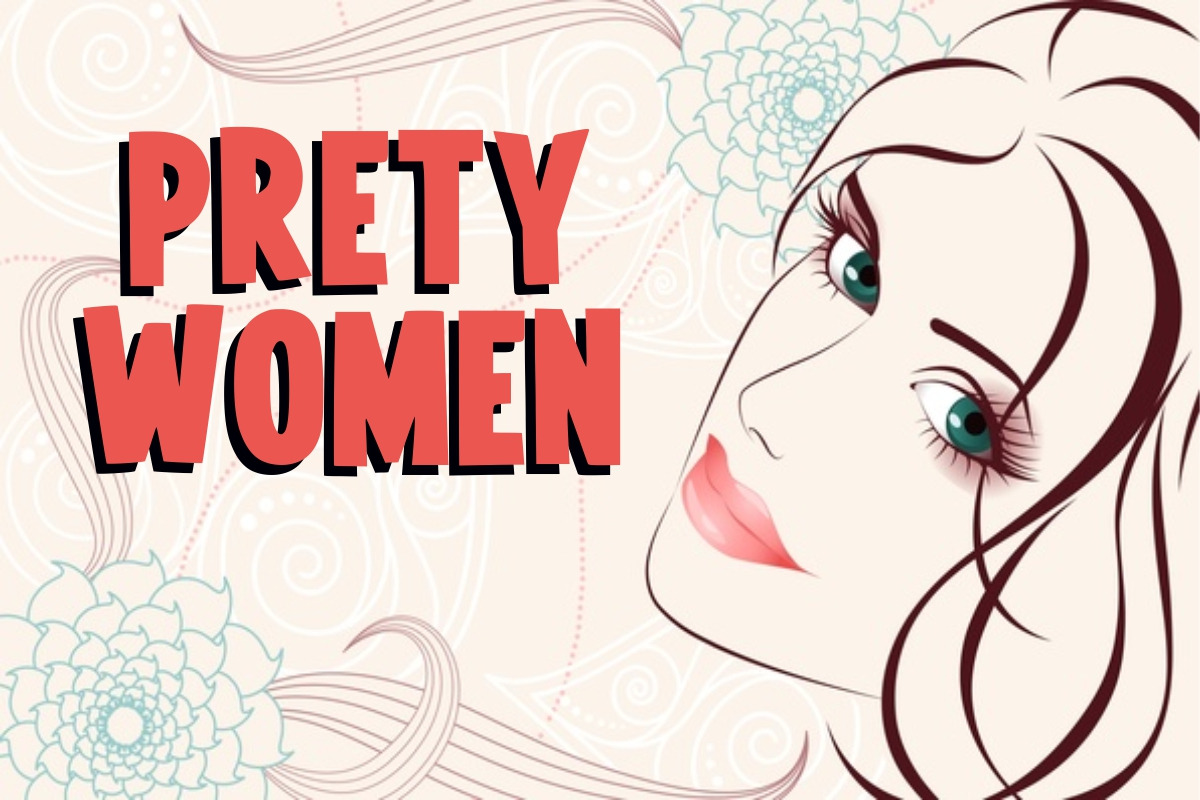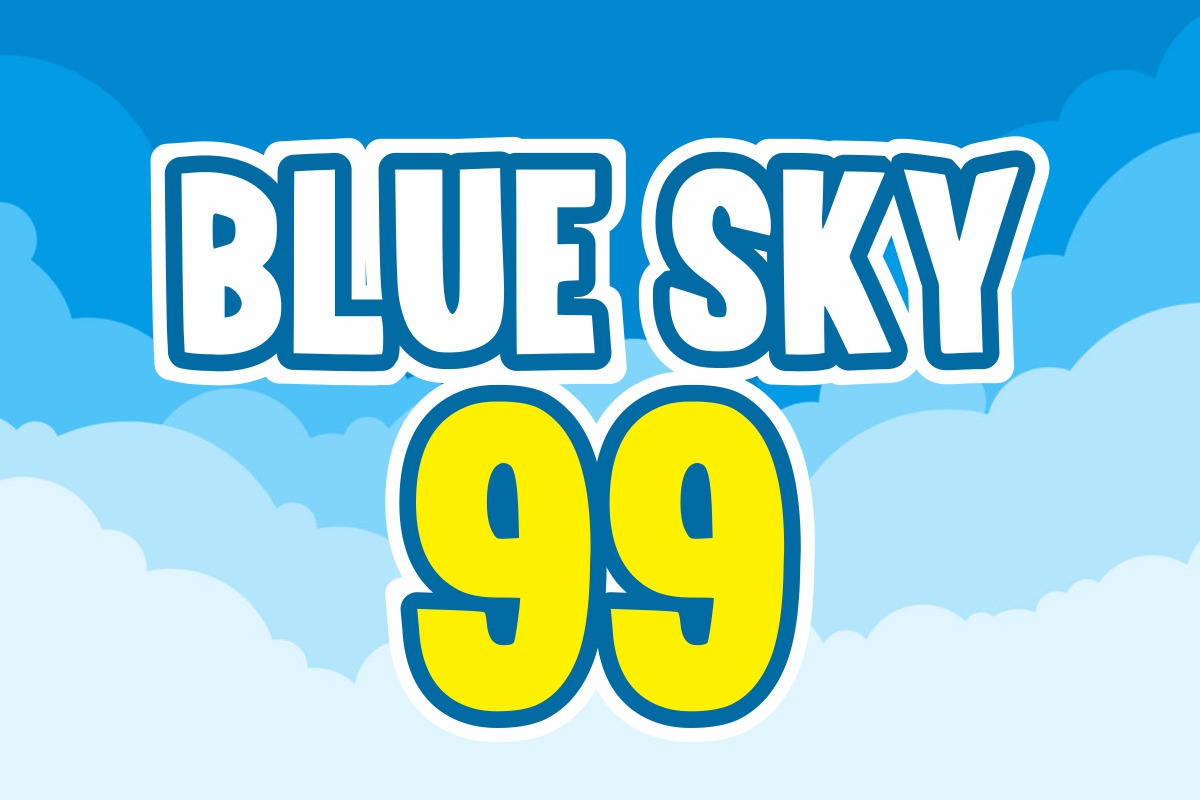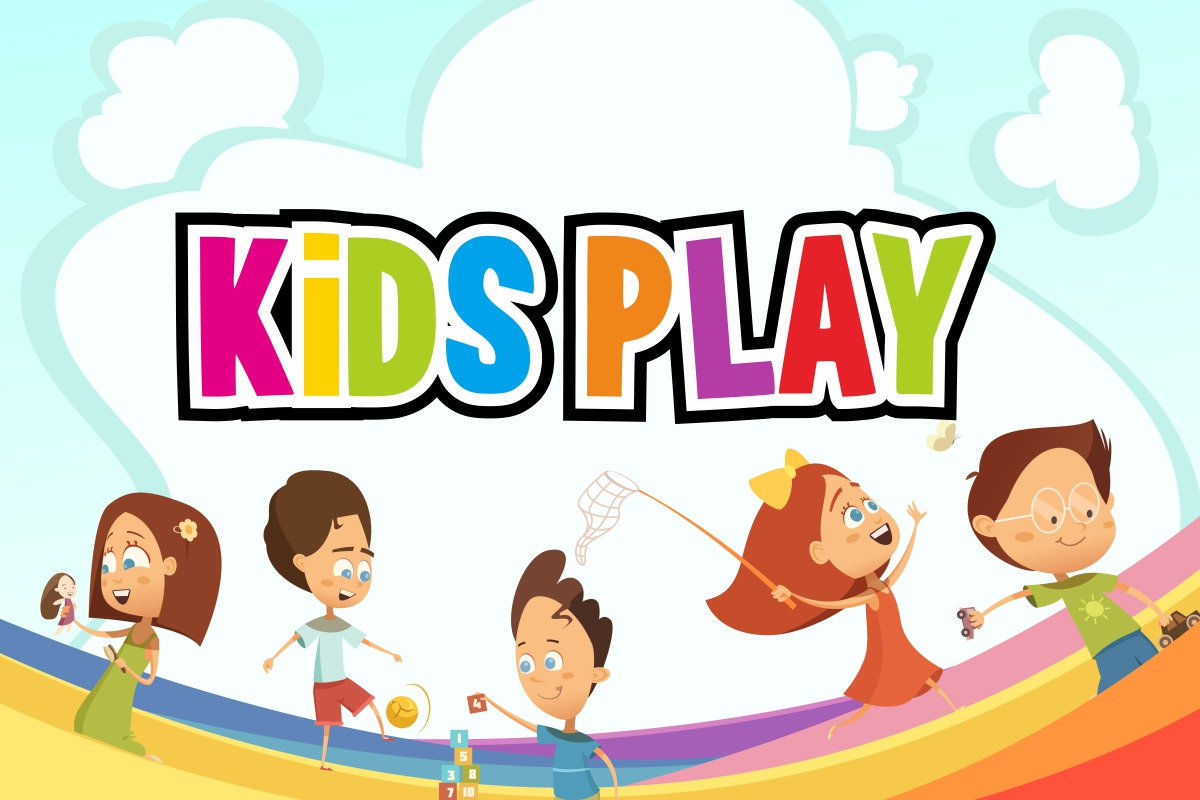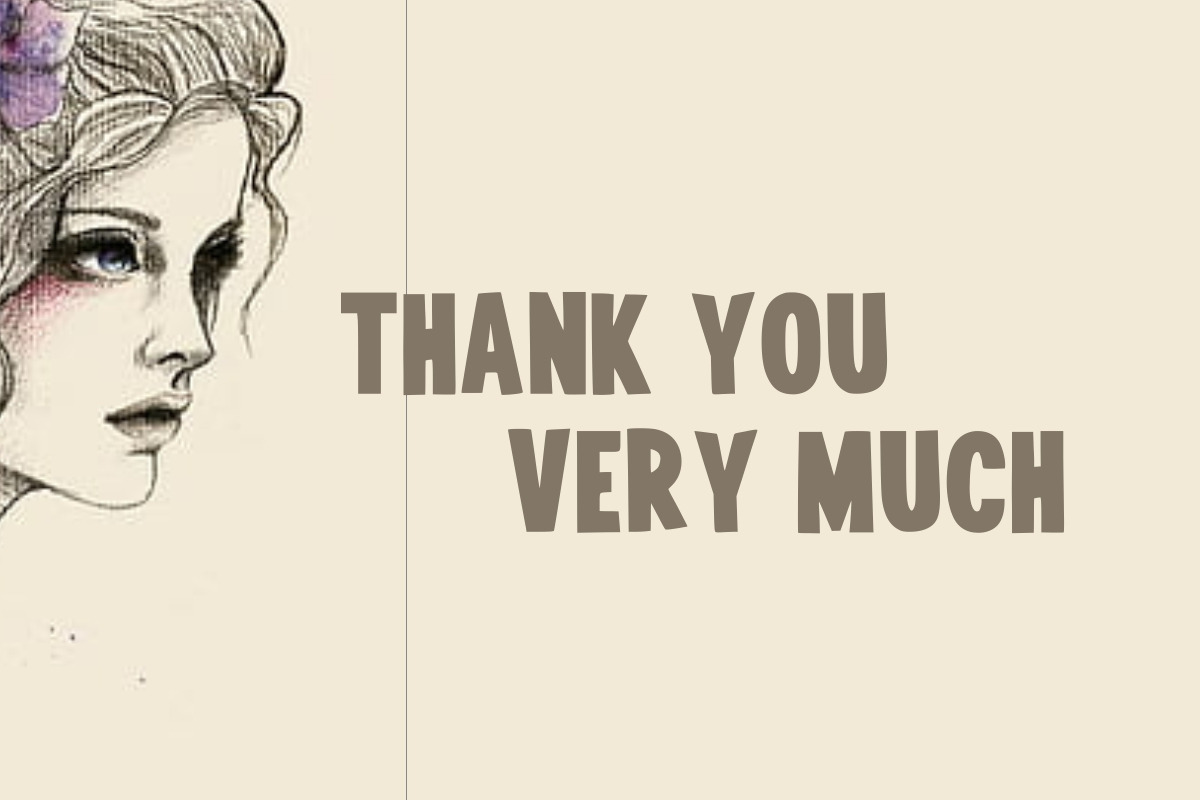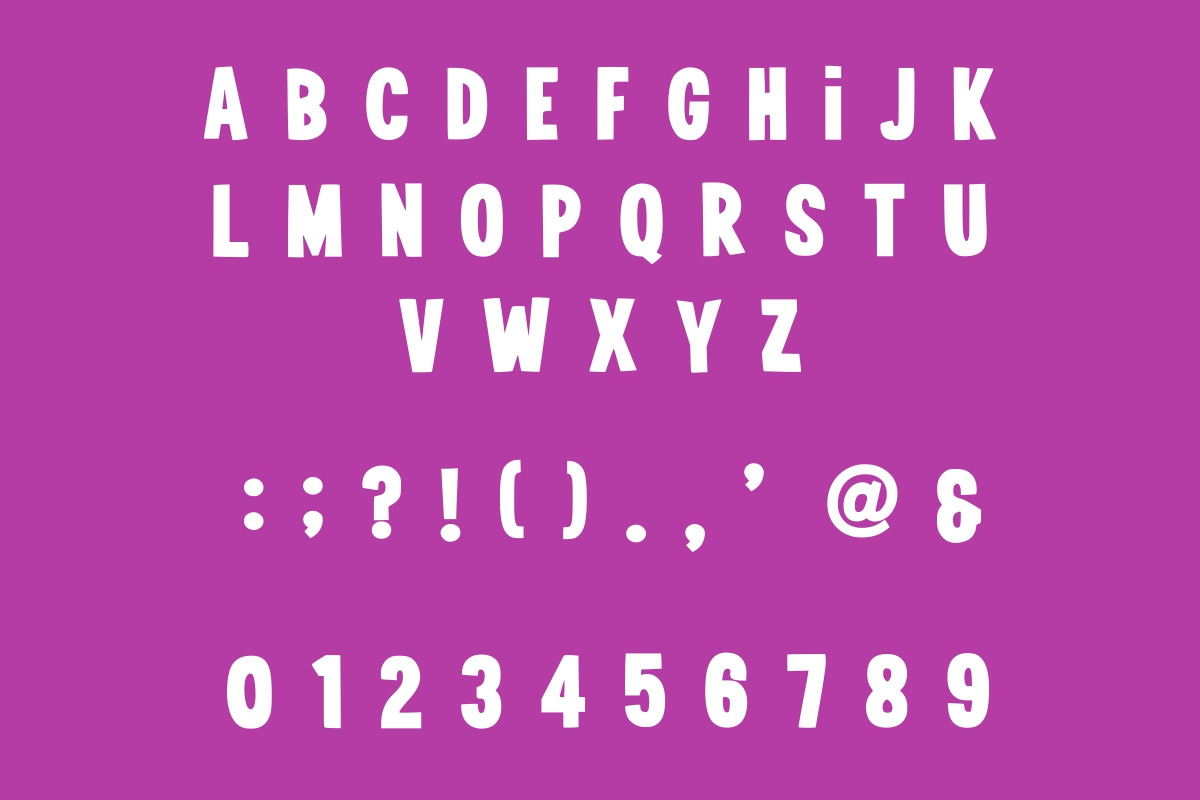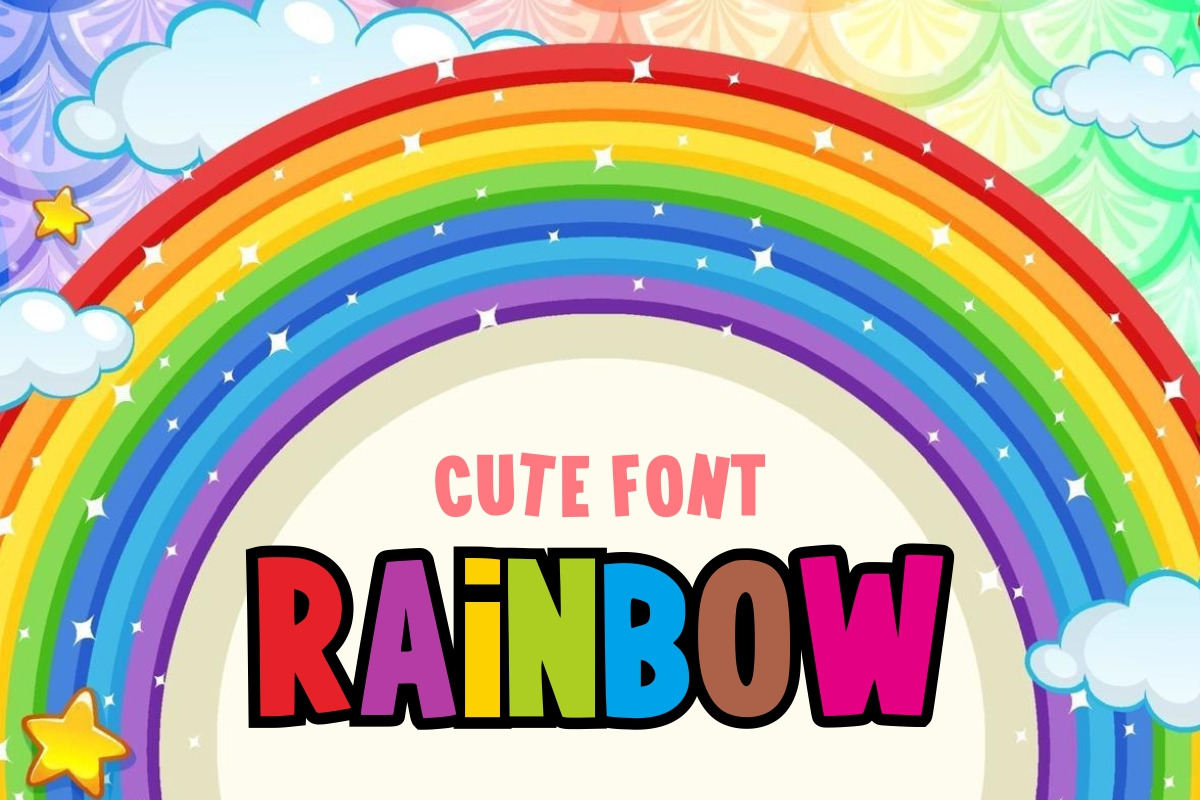
Girly Cute
Girly Cute is a cool, bold, and thick lettered display font. Its informal style and casual vibe will make this font a go-to choice for each of your creations that require a relaxed touch.
It is suitable for any product packaging, invitation, quote, t-shirt, label, posters, logos that you wish to develop!